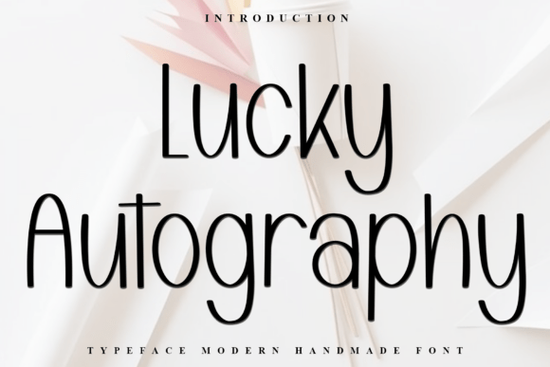
Looking for a font that feels personal and warm without sacrificing versatility? Lucky Autography is a beautifully crafted typeface that blends soft, hand-lettered strokes with a clean, readable structure. It works well for designers, crafters, and small business owners who want their projects to carry a natural, approachable feel from greeting cards and wedding invitations to social media graphics and branding materials.
What Does Lucky Autography Look Like?
This font has a flowing, autographic style with smooth curves and slightly varied stroke widths. It doesn't try too hard to look "perfect," and that's exactly what gives it charm. Each character carries a subtle organic quality, almost like someone wrote it by hand with a soft-tip pen. The result is a typeface that feels meaningful without being overly decorative.
The distinctive letterforms in this typeface make it stand out from generic script fonts. It has enough personality to carry a design on its own, yet it stays readable at both small and medium sizes.
Who Is This Font Best For?
If you work in any of these areas, Lucky Autography could fit right into your toolkit:
- Print-on-demand sellers designing t-shirts, mugs, tote bags, or wall art
- Crafters who use Cricut or Silhouette machines for vinyl projects and stickers
- Small business owners creating logos, packaging, or product labels
- Event planners and stationers working on wedding suites, party invitations, and thank-you cards
- Social media managers looking for a warm, human touch in graphics and quotes
The font's natural tone makes it especially useful for projects that need to feel personal and handcrafted, even when they're produced digitally.
What Kinds of Projects Work Well With Autography Fonts?
Hand-lettered fonts like Lucky Autography tend to shine in specific design contexts. Here are a few ideas:
- Greeting cards and stationery The soft strokes pair well with floral illustrations and watercolor backgrounds.
- Branding for lifestyle or wellness businesses It communicates warmth and authenticity without looking messy.
- Quote posters and wall art The flowing letterforms make inspirational text feel more intimate.
- Blog headers and Pinterest pins Great for niches like food, travel, motherhood, or handmade goods.
- Logo design Especially for bakeries, boutiques, beauty brands, and creative studios.
Pairing it with a simple sans-serif font for body text creates a balanced layout. If you need something clean to complement it, a minimalist sans-serif option works beautifully alongside script typefaces like this one.
How Does It Compare to Other Fonts?
Every font has its own mood. Lucky Autography leans toward warmth and softness, which sets it apart from more structured typefaces. Here's how it stacks up against a few other popular choices:
- Looking for something more seasonal and playful? Preppy Easter brings a fun, lighthearted energy through its cheerful character set.
- Need a more formal or editorial style? Prestion offers an elegant serif feel suited for magazines and luxury branding.
- Want something geometric and modern? Neuria gives you a clean, contemporary look for tech and startup designs.
Each font serves a different purpose. Lucky Autography is the right choice when you want your design to feel approachable, personal, and full of character.